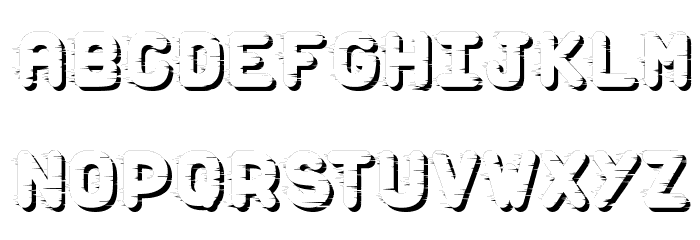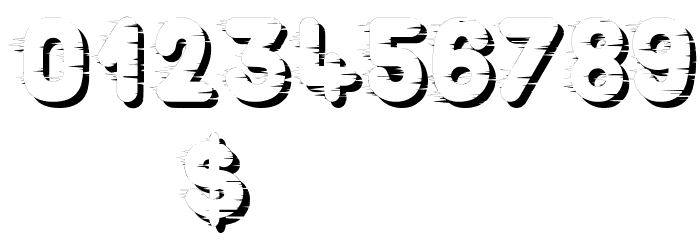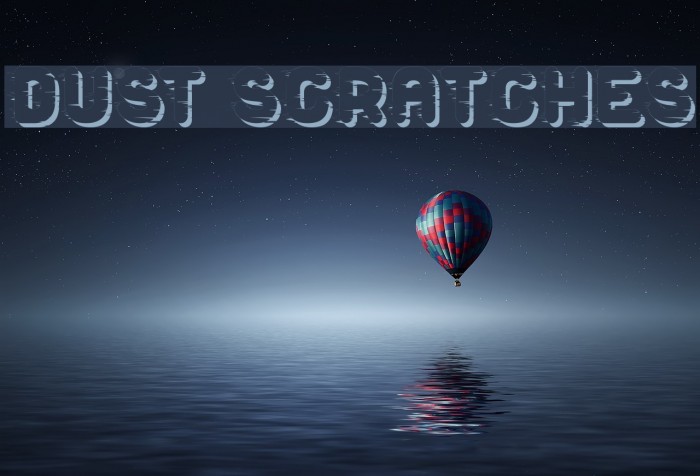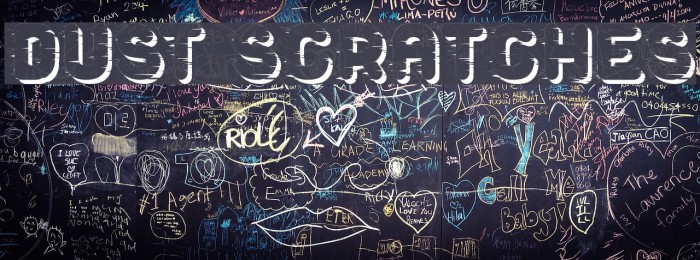
Dust Scratches Font
This font features a bold, distressed style with a unique texture that mimics the appearance of dust and scratches. The characters are uppercase and have a substantial weight, giving them a strong presence. The texture adds a rugged, worn look, making it ideal for designs that require a vintage or industrial feel. The spacing between characters is normal, ensuring readability despite the textured appearance. The font's boldness and distinctive style make it suitable for impactful headlines or logos that need to stand out.
A bold, distressed font with a dust and scratch texture for a vintage look.
- Font: Dust Scratches
- Proposed Projects: Ideal for vintage-themed posters, industrial design projects, logos, and headlines that require a rugged, textured appearance.
- Overall Style: Vintage